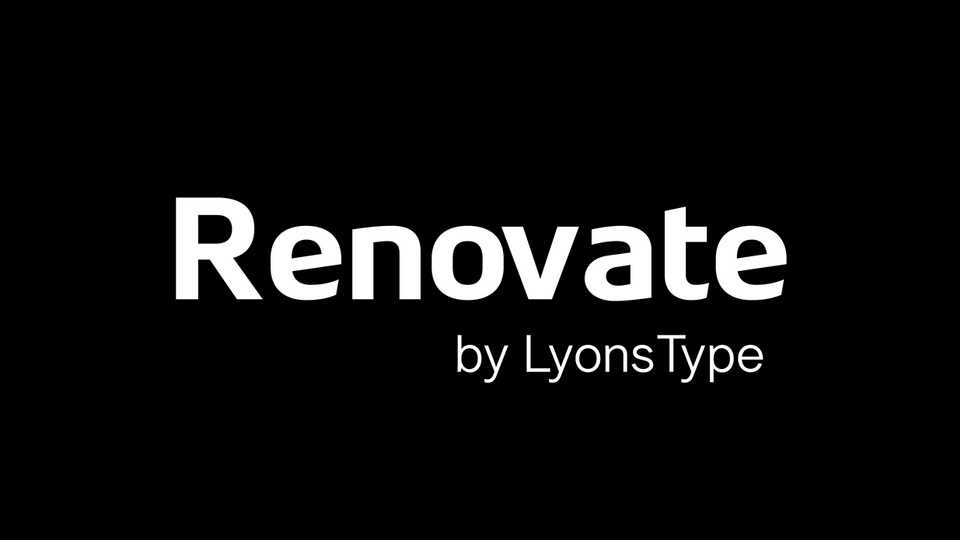
Download LT Renovate font, a versatile sans serif typeface that blends modern sophistication with sleek proportions, making it the perfect choice for a wide range of design applications.
Designer: LyonsType